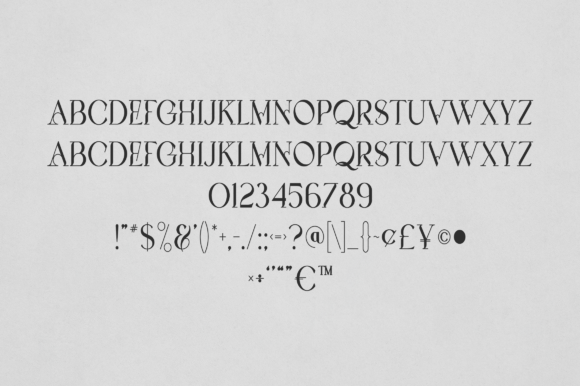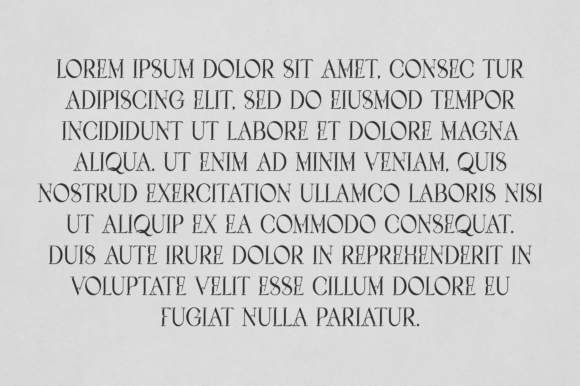
Introducing Flint Font: Elevate Your Typography with Elegance and Versatility
In the world of typography, a font can make or break the visual identity of a design project. If you’re a designer or crafter looking for a unique and stylish serif font to take your work to the next level, look no further than Flint Font. This elegant and versatile font is designed to enchant every logo, branding, headline, or plain text, making it the perfect addition to your typography arsenal.
What Makes Flint Font Special?
Flint Font is a carefully crafted serif font that boasts a distinctive and sophisticated style. Its elegant lines, refined curves, and precise letter spacing make it an ideal choice for a wide range of design applications. Whether you’re working on branding projects, home-ware designs, product packaging, magazine headers, or simply want to add a stylish text overlay to a background image, Flint Font is the perfect solution.
Key Features of Flint Font
- Elegant and Versatile: Flint Font’s classic serif design makes it suitable for a variety of design projects, from traditional to modern.
- Unique Typography: The font’s distinctive style ensures that your typography stands out from the crowd, making your design project truly unique.
- Highly Readable: Flint Font’s clear and precise lettering makes it easy to read, even at small sizes.
- Multi-Purpose: Use Flint Font for branding, logos, headlines, body text, and more.
Design Applications for Flint Font
Flint Font’s versatility makes it an excellent choice for a wide range of design applications. Here are some ideas to get you started:
- Branding Projects: Create a lasting impression with Flint Font’s elegant and sophisticated style.
- Home-Ware Designs: Add a touch of elegance to your home-ware designs, such as packaging, labels, and instruction manuals.
- Product Packaging: Make your product stand out on store shelves with Flint Font’s unique and eye-catching style.
- Magazine Headers: Add a touch of sophistication to your magazine headers and make your content stand out.
- Text Overlays: Use Flint Font as a stylish text overlay to add context and meaning to your background images.
Tips for Using Flint Font Effectively
To get the most out of Flint Font, here are some tips to keep in mind:
- Experiment with Font Sizes: Flint Font’s clear and precise lettering makes it easy to read at various font sizes.
- Play with Color: Flint Font’s elegant style looks great in a variety of colors, from bold and bright to subtle and muted.
- Mix and Match: Combine Flint Font with other fonts to create a unique and visually appealing typography.
In conclusion, Flint Font is an elegant and versatile serif font that can elevate your typography to new heights. Its unique style, high readability, and multi-purpose design make it an excellent choice for designers and crafters looking to add a touch of sophistication to their work. Whether you’re working on branding projects, home-ware designs, product packaging, or simply want to add a stylish text overlay to a background image, Flint Font is the perfect solution.